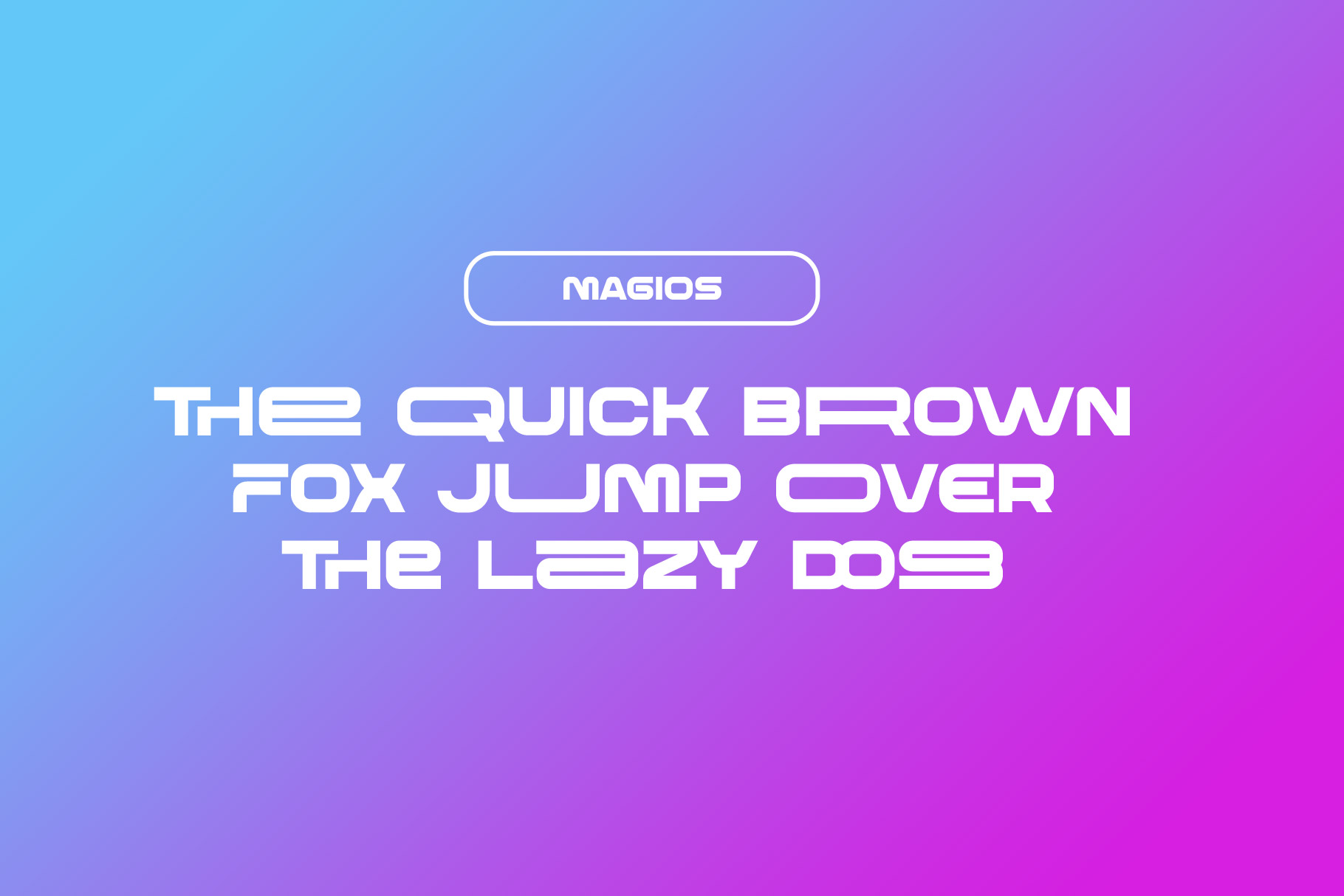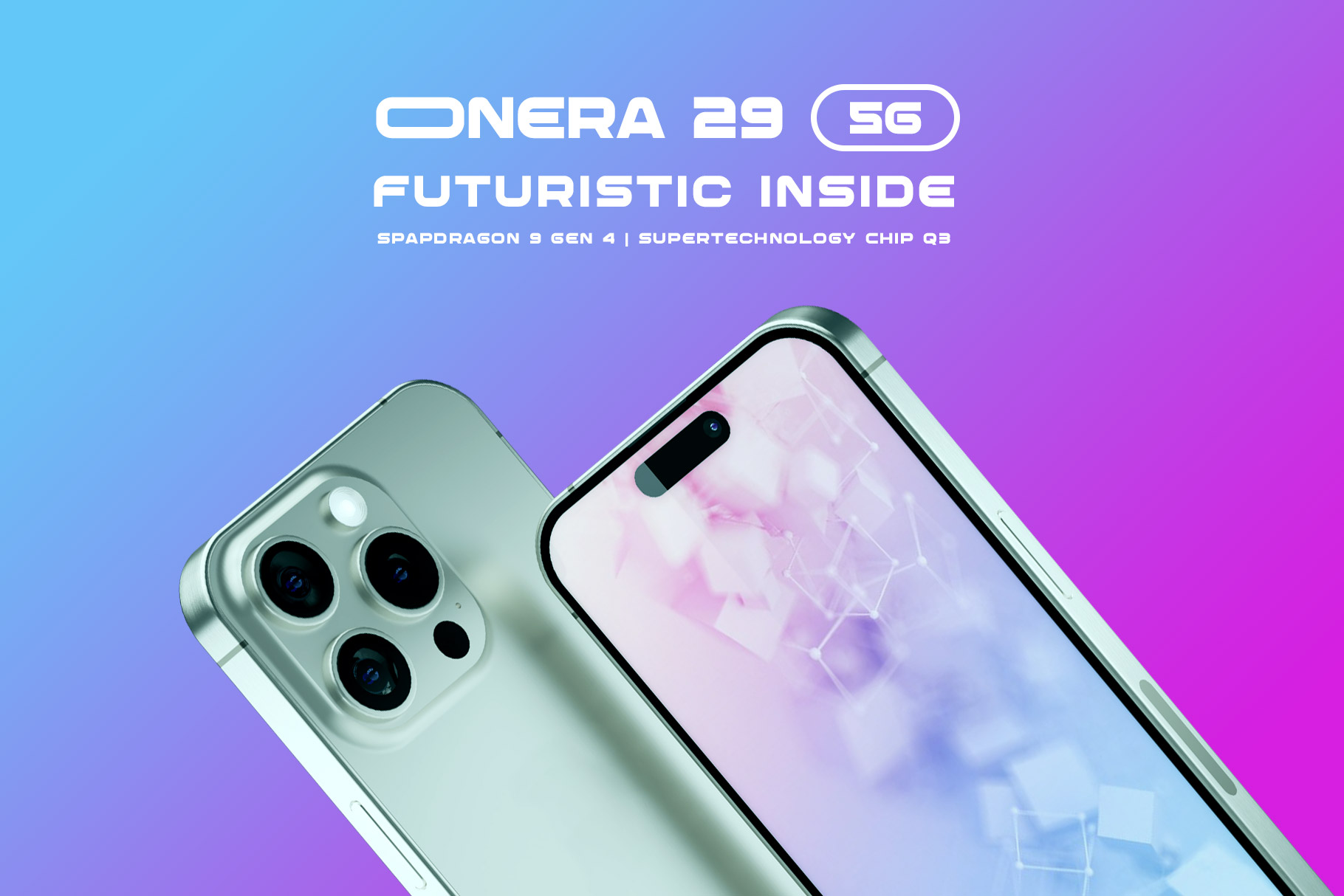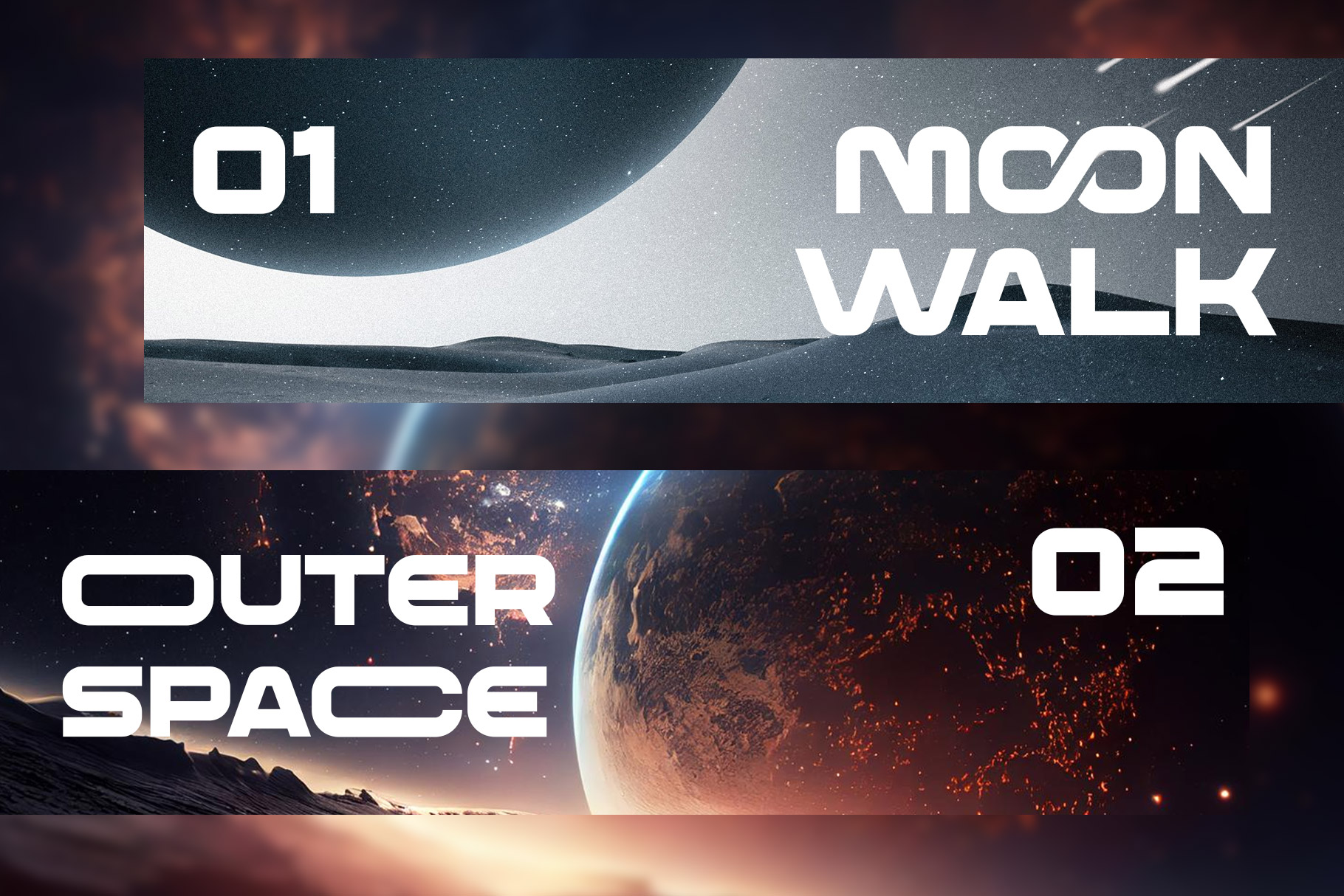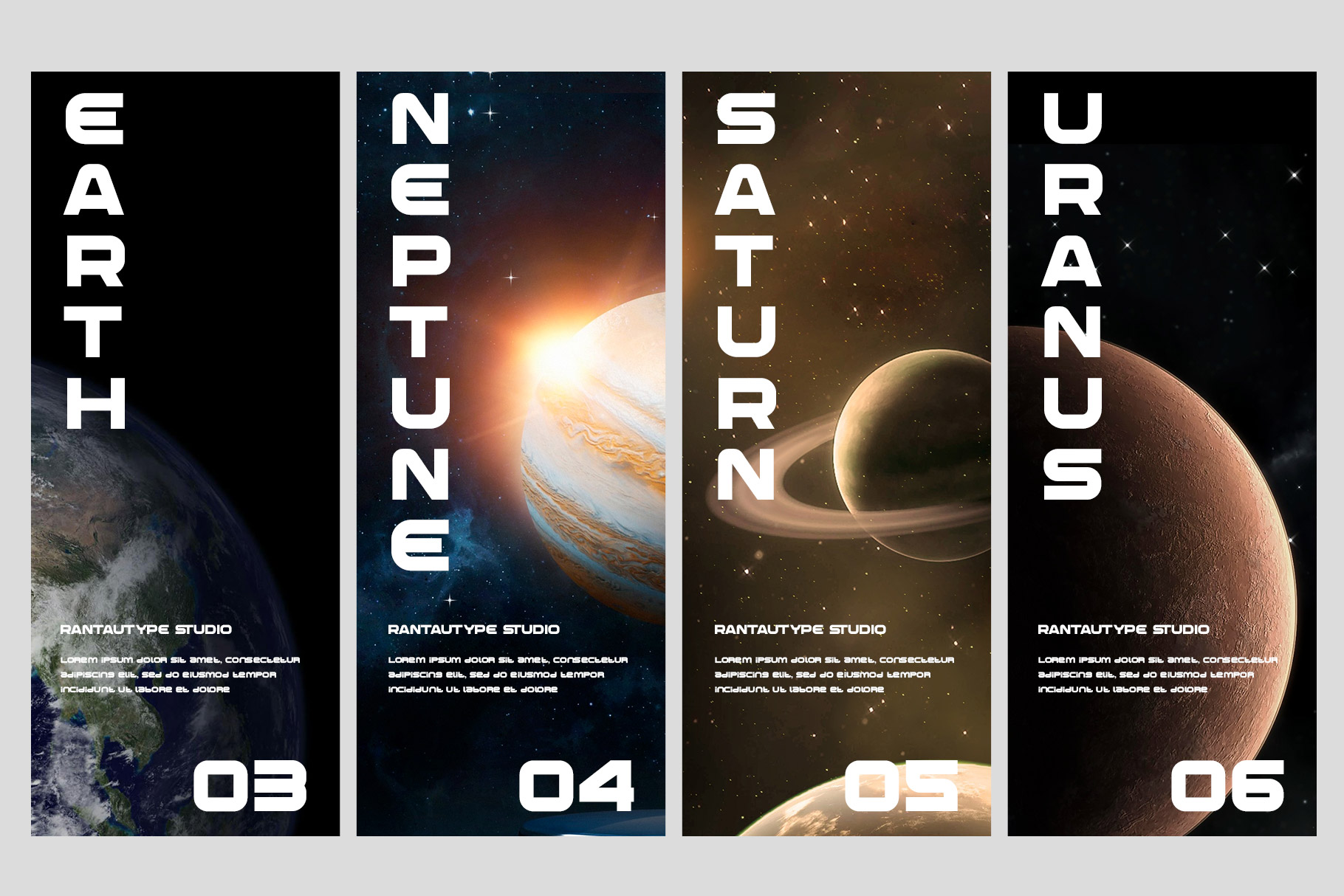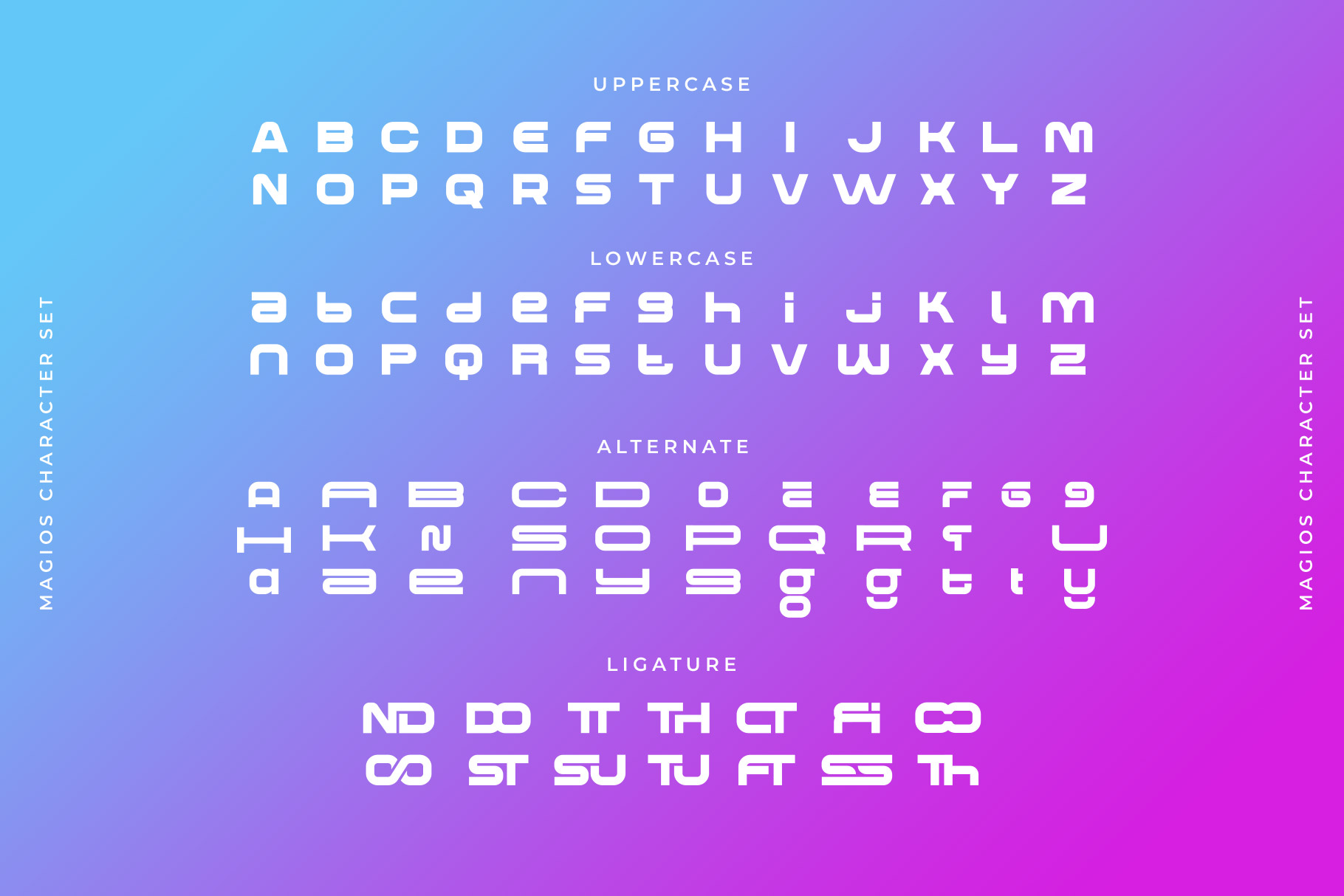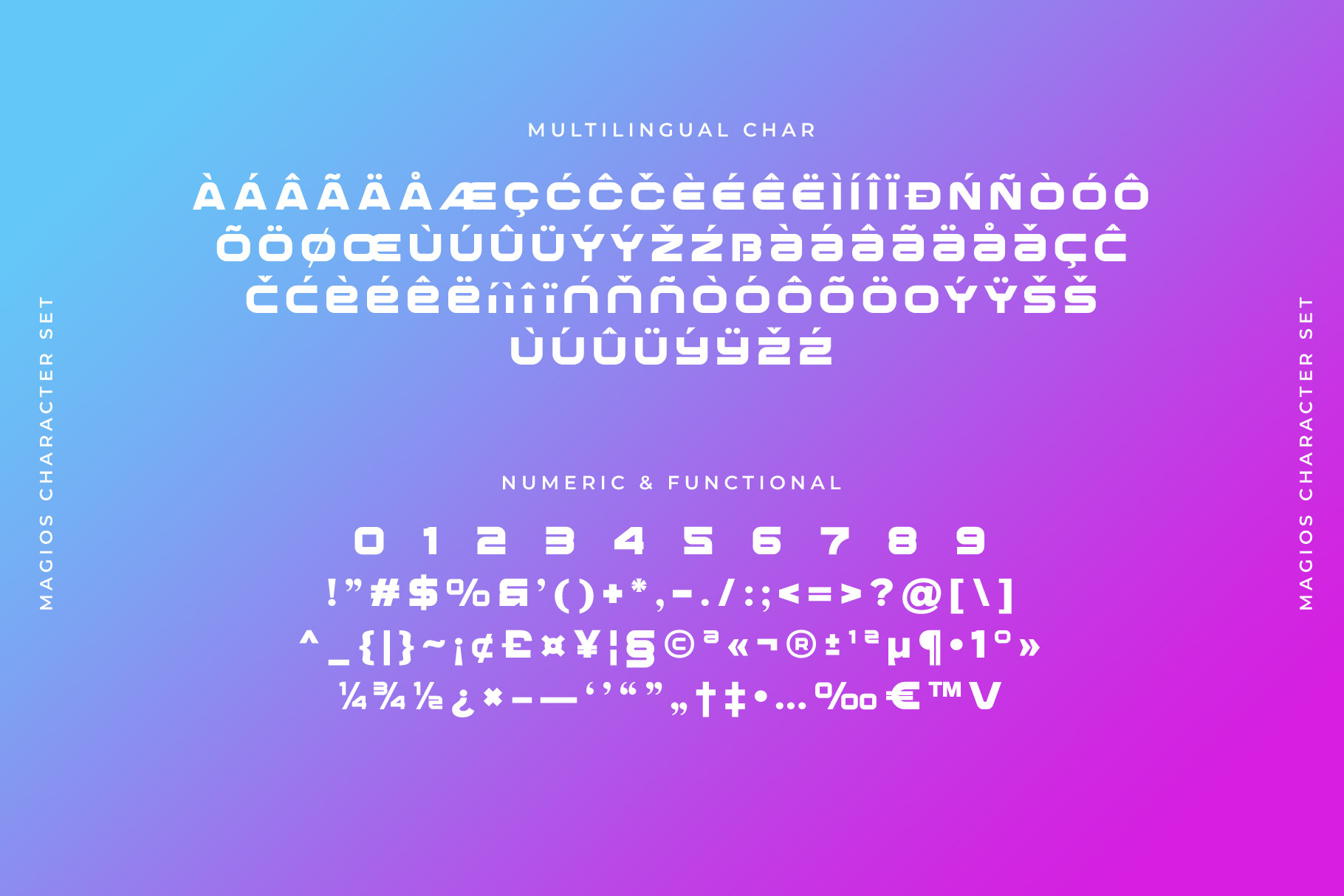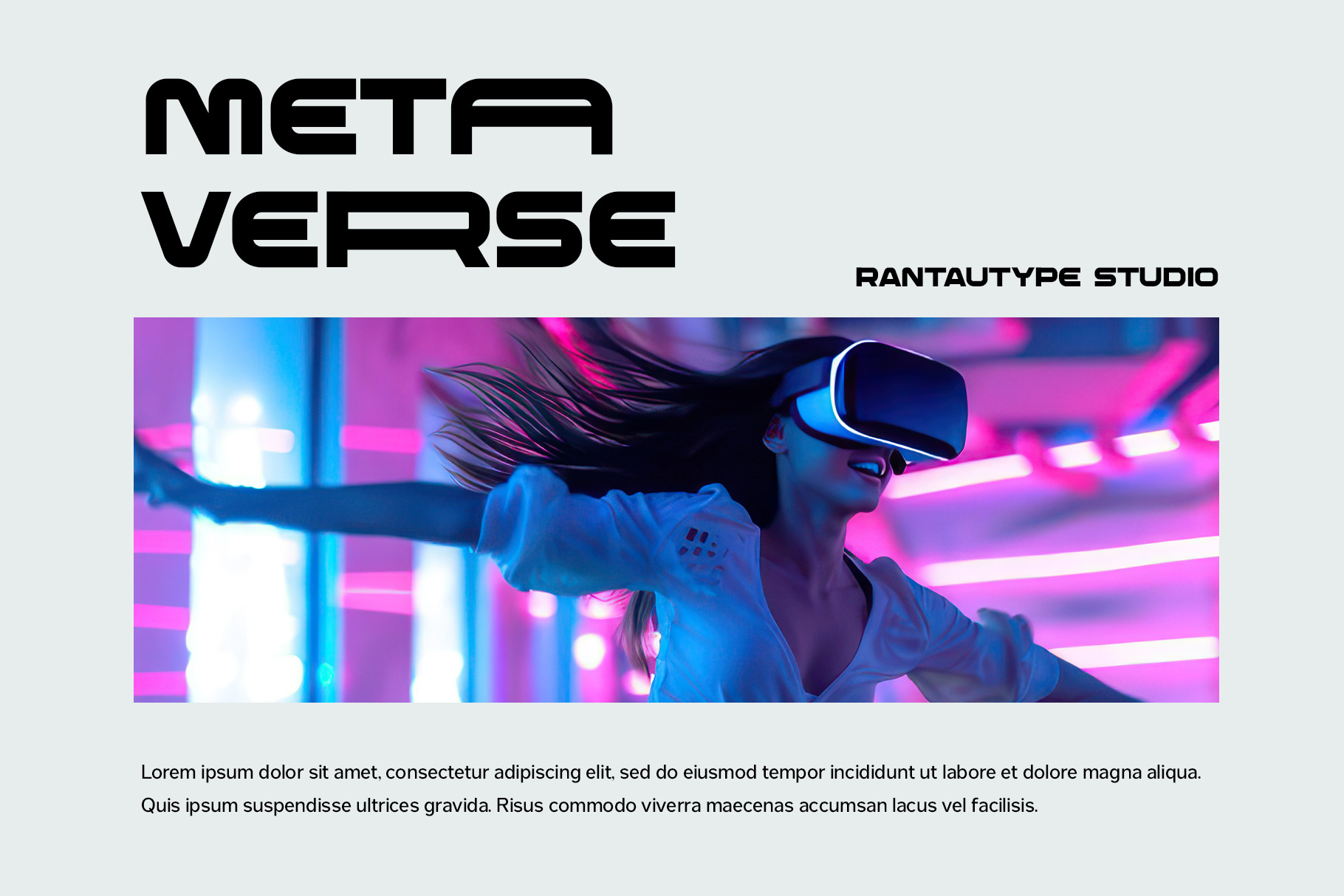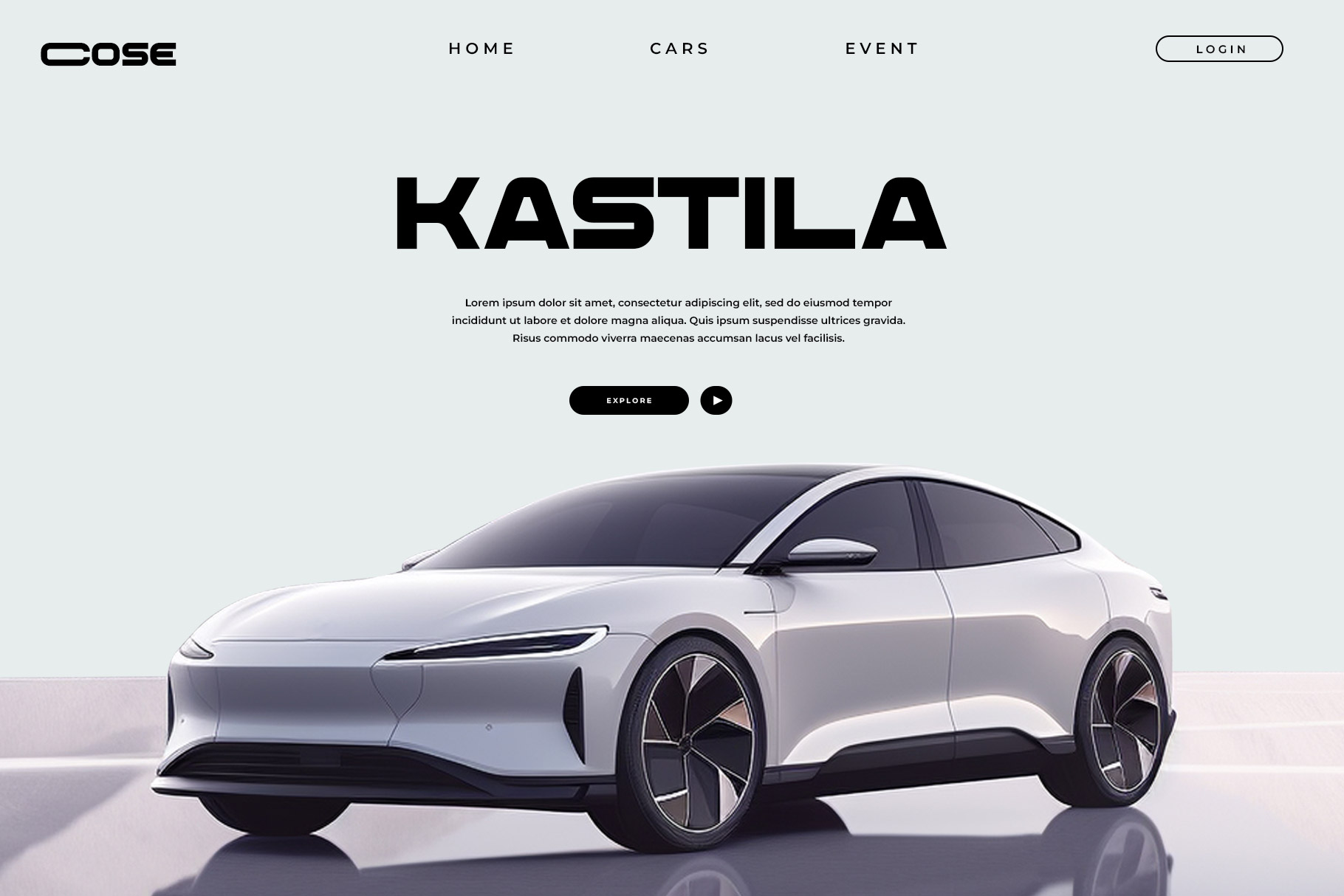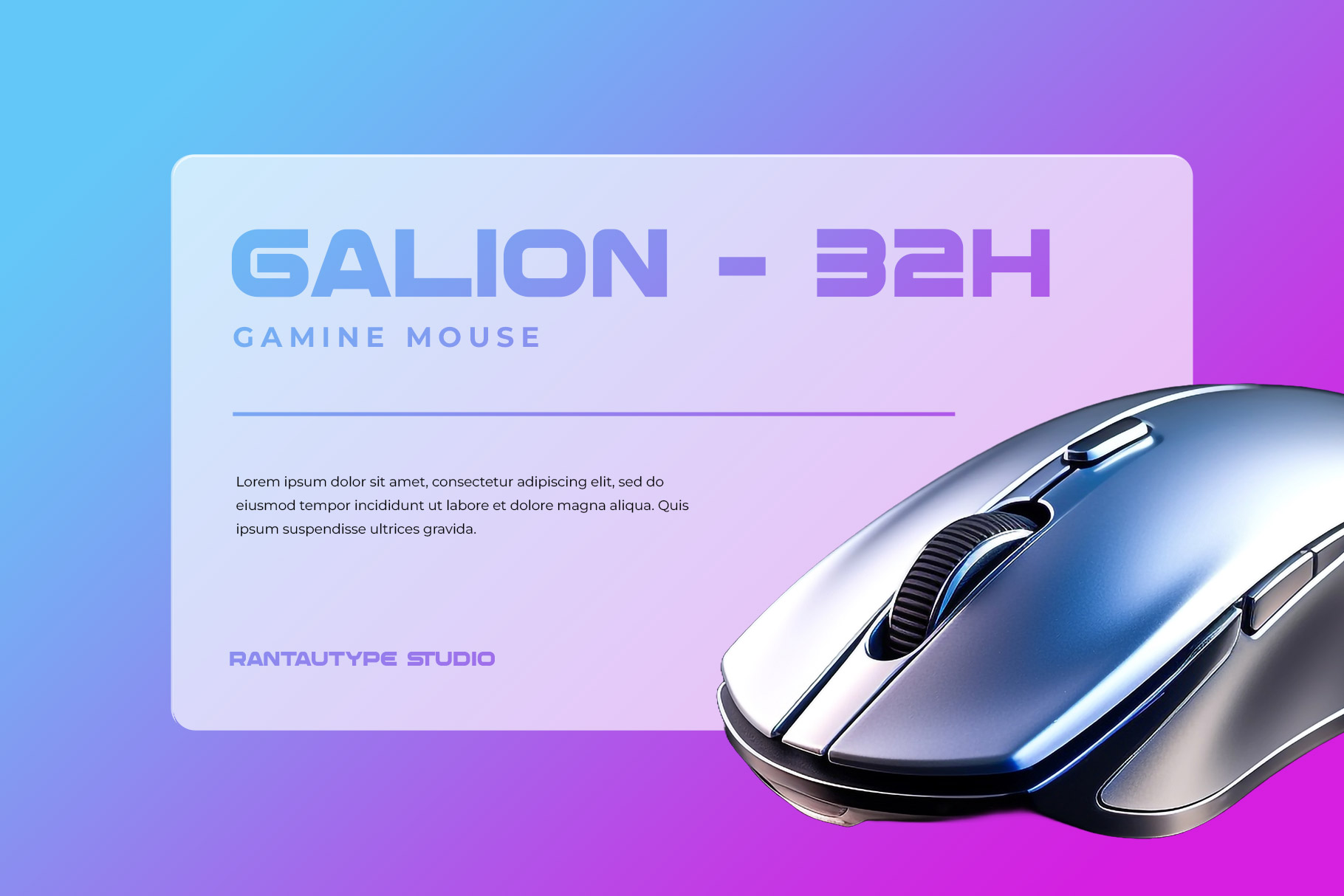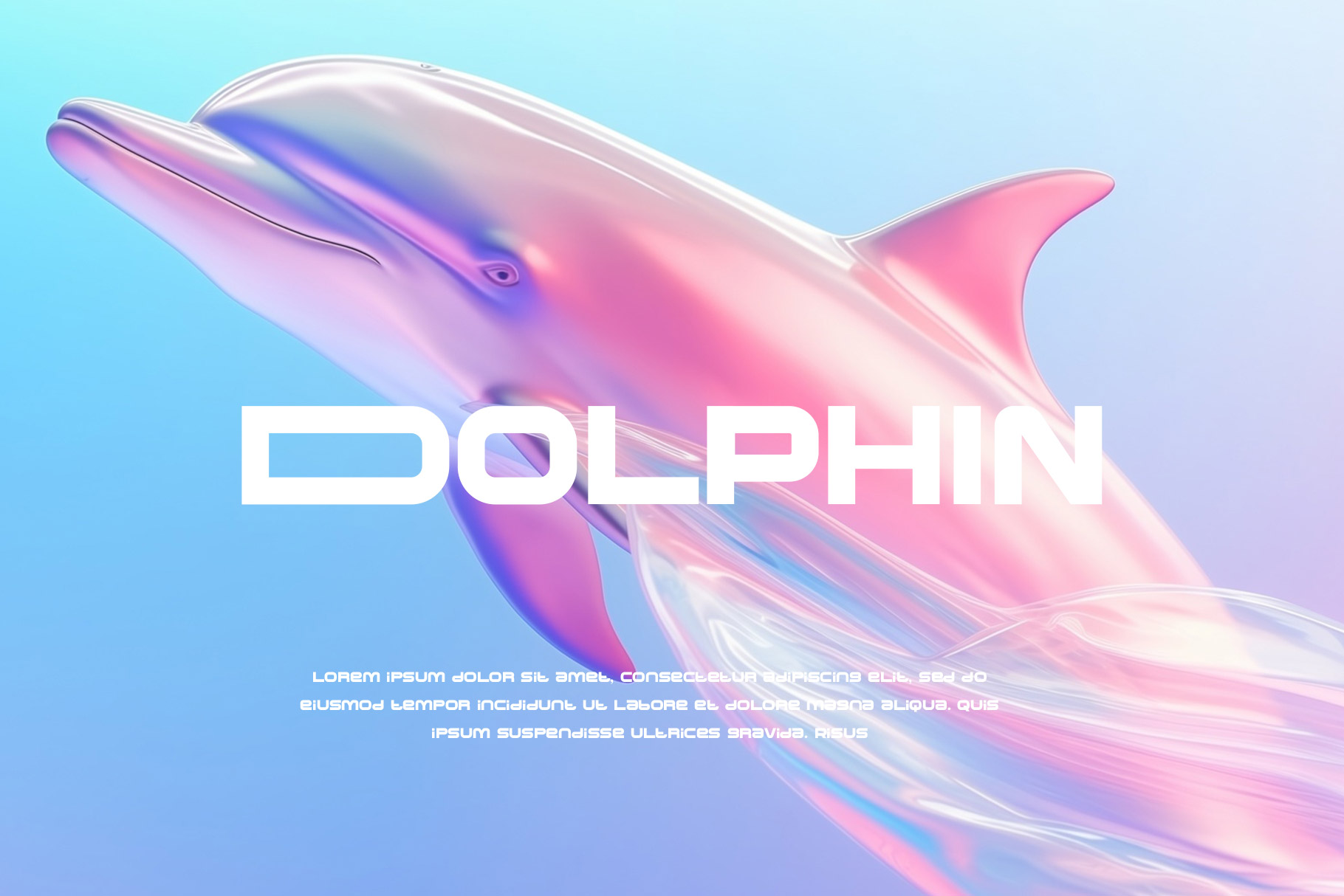
- Magios Ultimate Futuristic Font
Magios is futuristic font made by rantautype studio. Magios is inspire from a cube and futuristic visual design with unique form. Magios come with strong shape to make different visual design and attractive. With Magios bring you another world about
technology era.
Magios is a perfectly choice for any creative endeavor such as logos, advertisements, stationery, branding project, display and magazine, invitation, headline, corporate brand, product design, label, business project and many other project with old futuristic touch.